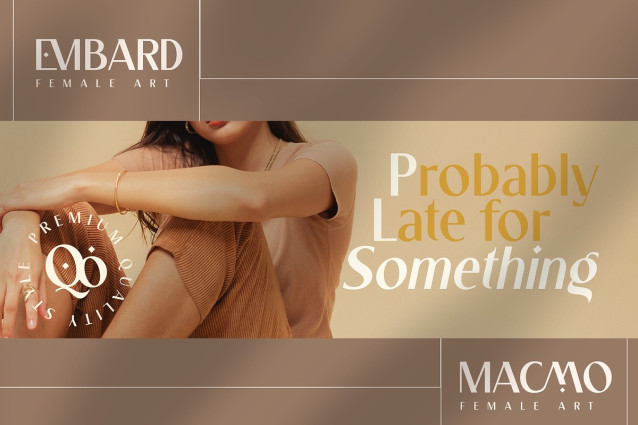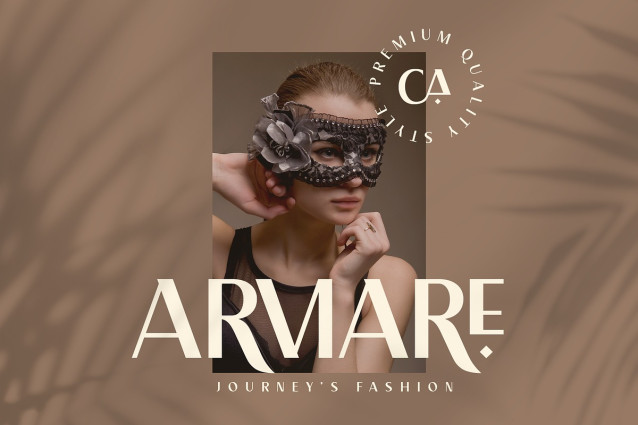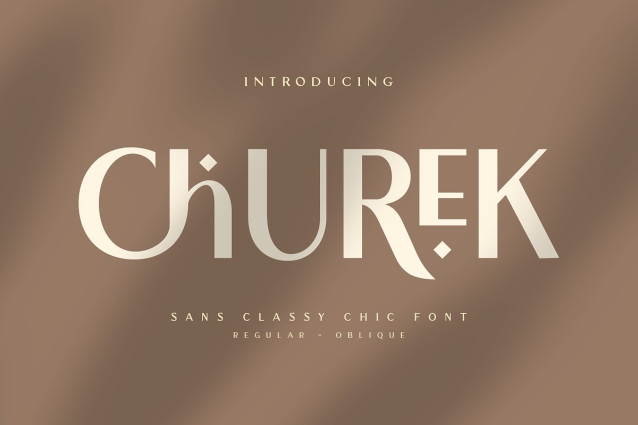
Churek Font
Churek Font is a elegant and classy chic serif font for brand, logo and quotes design. Based on our experience as a graphic designer, we often are requested to design a logo in a unique style but with an elegant shape. So, we try to brainstorming and create this font to make the idea is going out. This is perfect for Branding and Logo design. You will get classy, elegant, and certainly unique logos with this font. Don’t Worry! you also can use this font for quote design or display text.